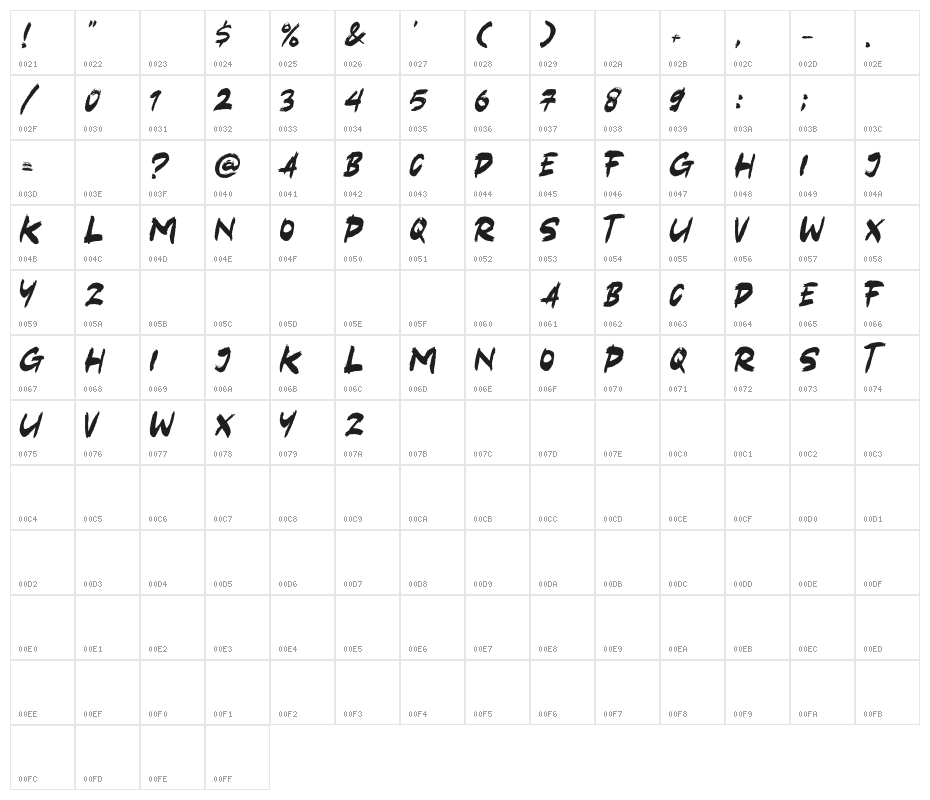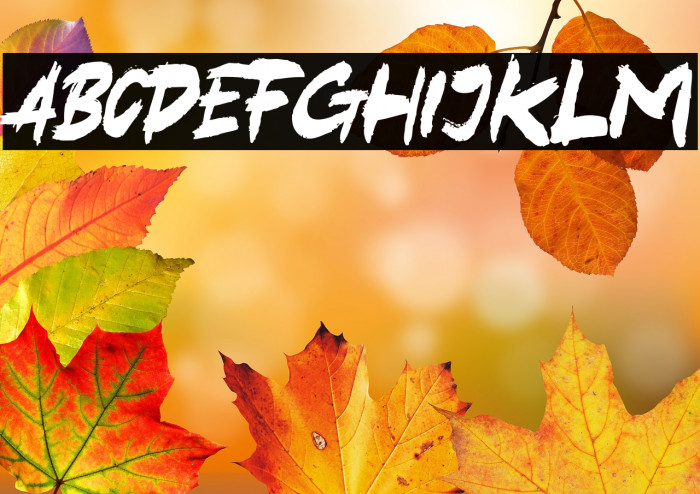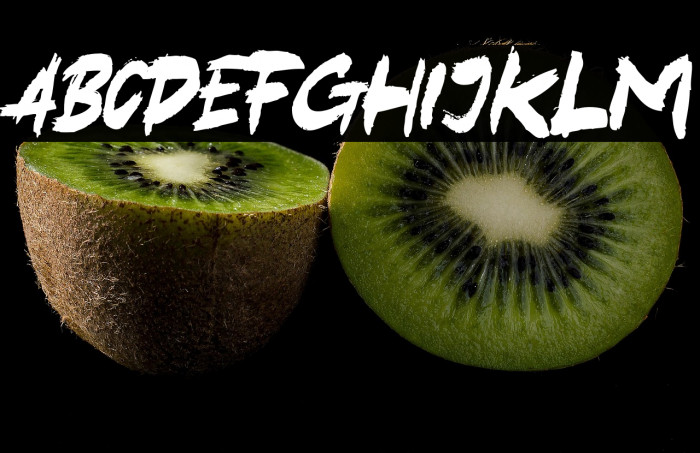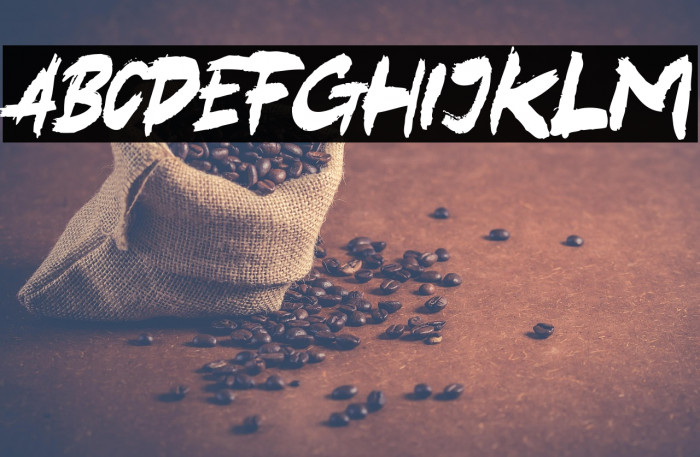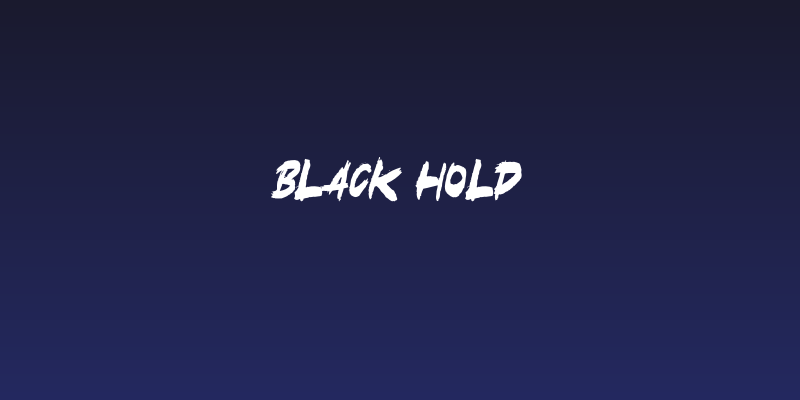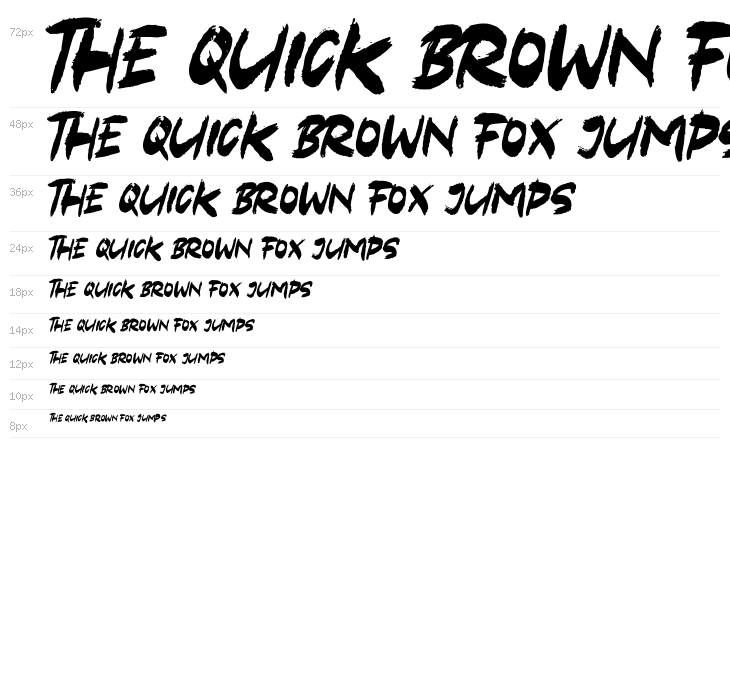
Black Hold Font
Black Hold Description
This font features a bold and dynamic brush style, characterized by its thick, expressive strokes and a hand-painted appearance. The letters exhibit a sense of movement and energy, with irregular edges that give it a raw and artistic feel. The uppercase and lowercase letters maintain a consistent style, while the numerals and special characters complement the overall aesthetic. This font's design is reminiscent of street art or graffiti, making it stand out with its unique, edgy personality.
| Overall Style | Modern, Artistic |
| Proposed Projects | Ideal for projects that require a bold and artistic touch, such as posters, album covers, branding for creative industries, or any design needing a strong visual impact. |